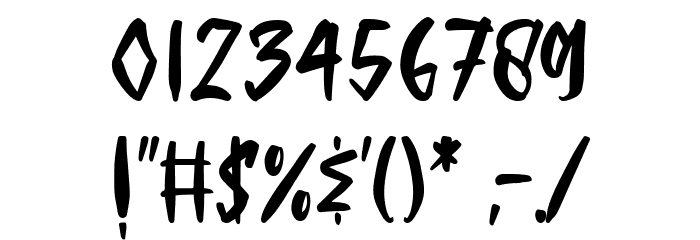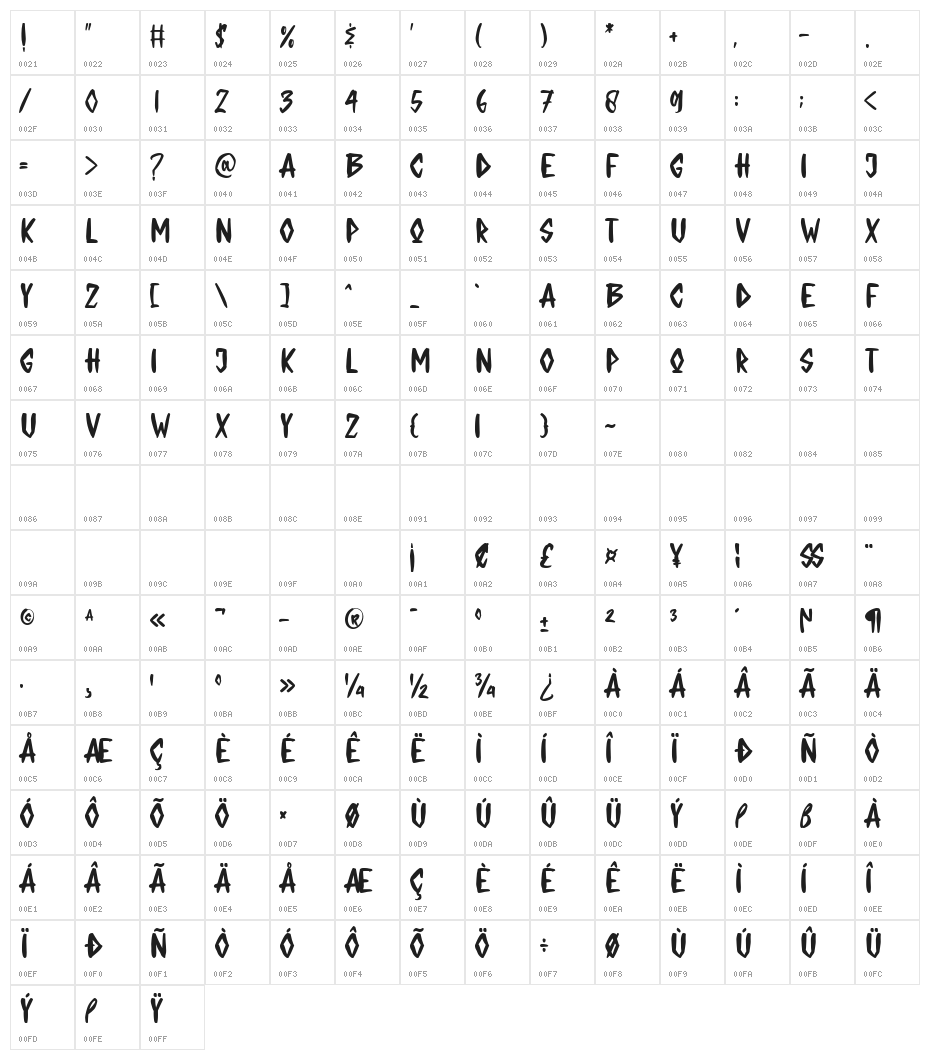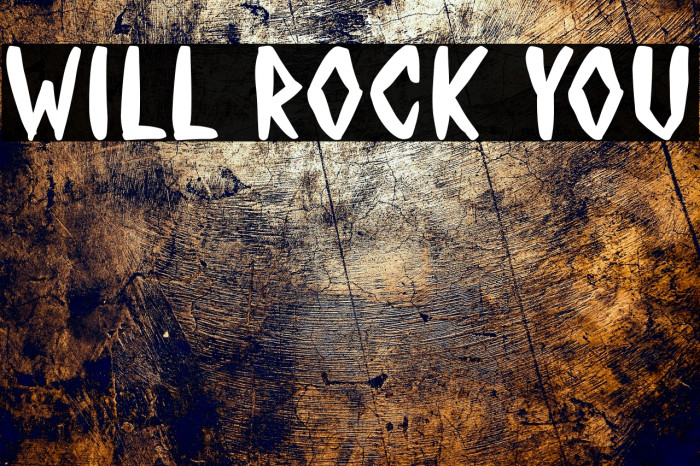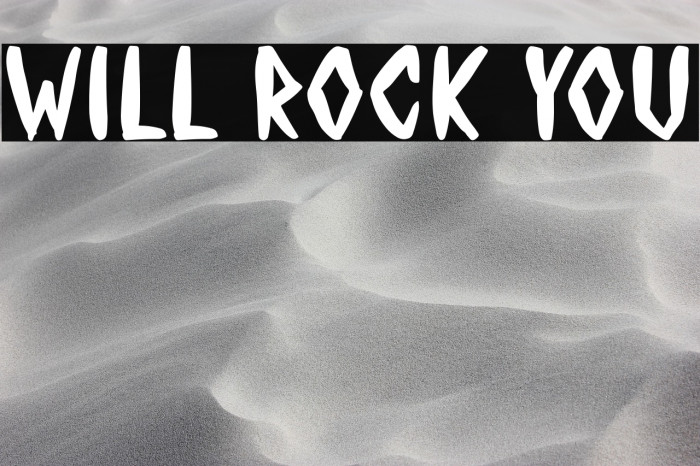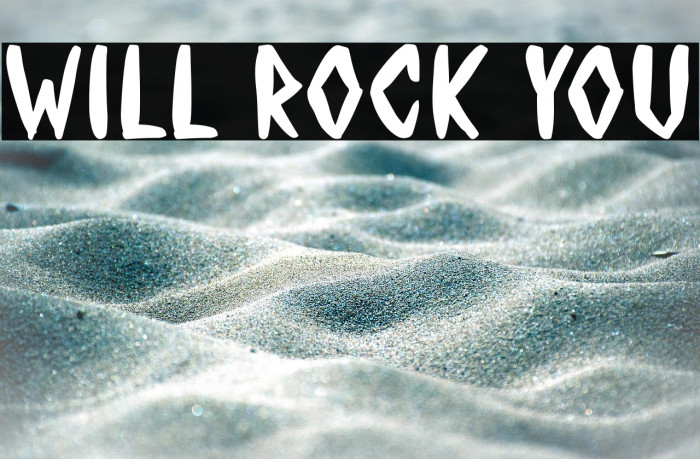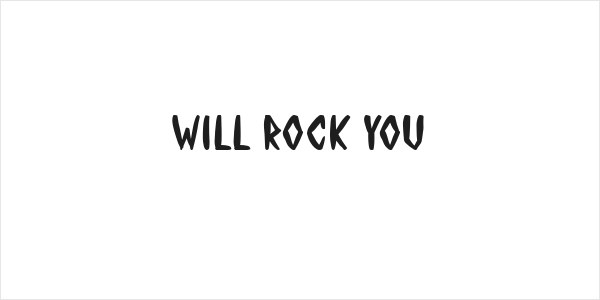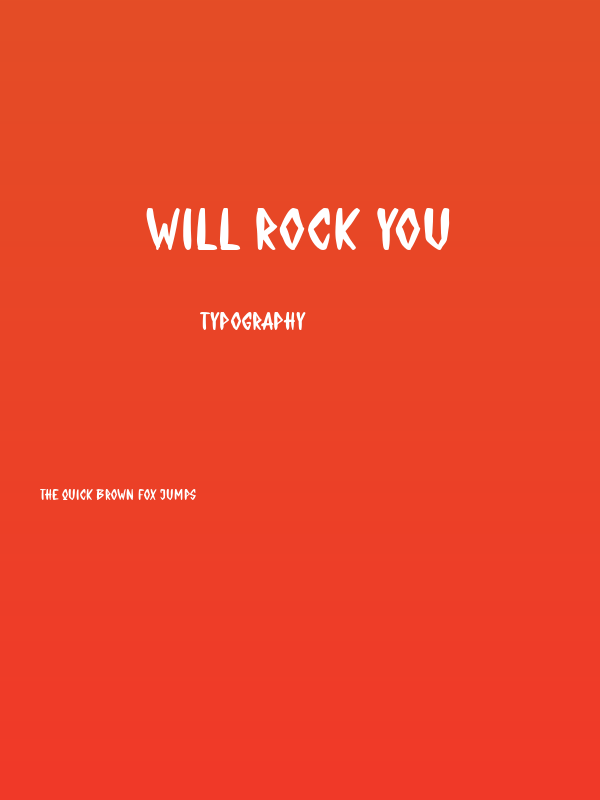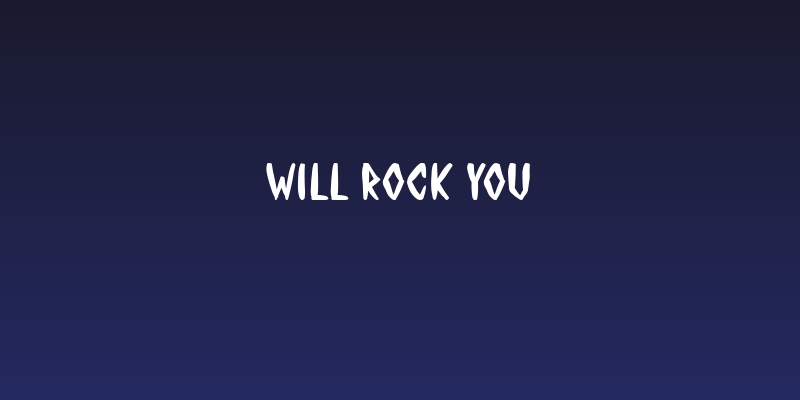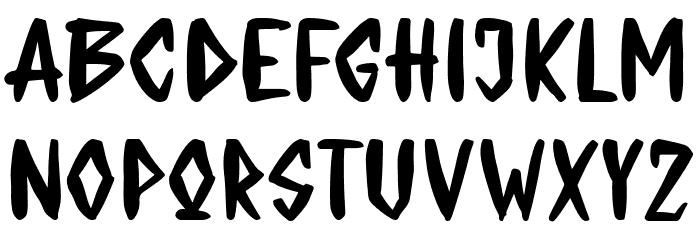
WILL ROCK YOU Font
WILL ROCK YOU Description
This font features a bold and energetic style, characterized by its thick strokes and slightly irregular shapes that give it a hand-drawn appearance. The uppercase letters are particularly striking, with a dynamic and edgy look that suggests movement and excitement. The lowercase letters maintain the same boldness, ensuring consistency across the typeface. Numbers and special characters are designed to match the overall aesthetic, making them suitable for a variety of uses. The font's unique style makes it stand out, perfect for projects that require a strong visual impact.
| Proposed Projects | Ideal for music album covers, event posters, branding for edgy or youthful products, and any design needing a bold statement. |